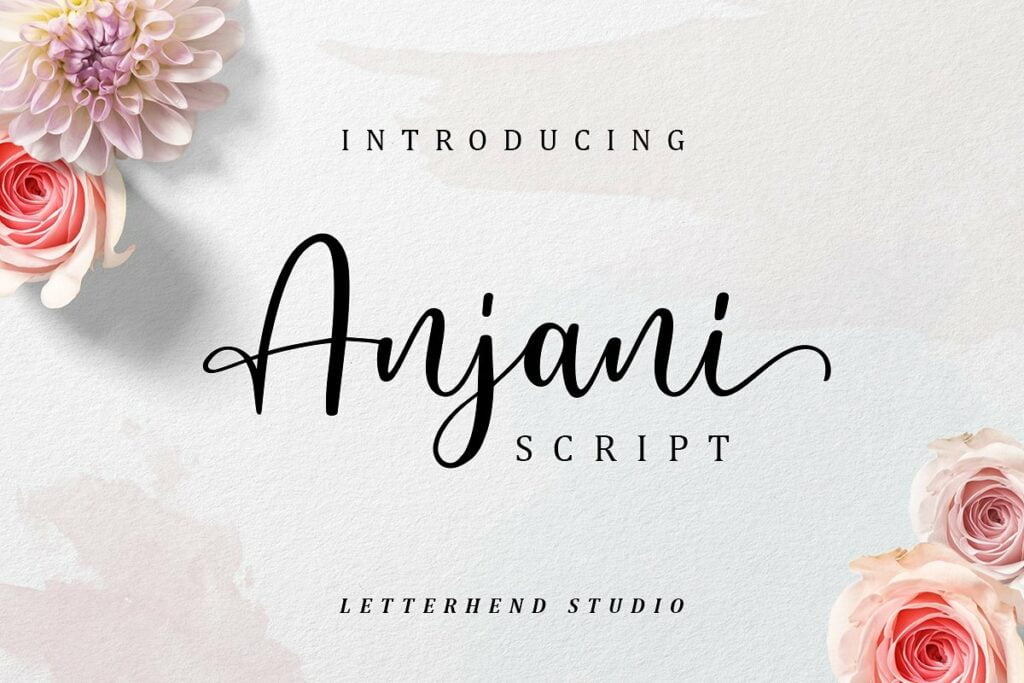
Anjani Script Font
Anjani – a modern calligraphy script that bring romantic feel. The natural hand writing script is suitable for you who needs a typeface for headline, logotype, apparel, invitation, branding, packaging, advertising etc.
This typeface is comes in uppercase, lowercase, punctuations, symbols & numerals, stylistic set alternate, ligatures, etc